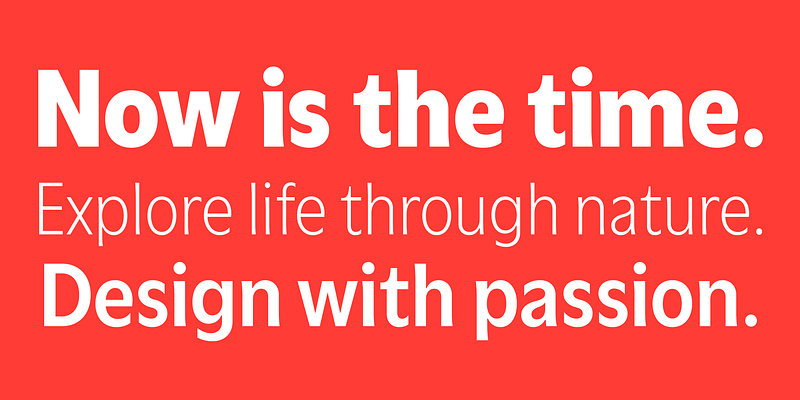
Utile Narrow Font Free Download
Utile Narrow Font Free Download is a sleek and modern sans-serif typeface designed for maximum readability in compact spaces. With its condensed letterforms and clean geometry, Utile Narrow is ideal for editorial layouts, mobile interfaces, branding, and any project where space-saving typography is key.
This font balances form and function beautifully—offering a minimalist aesthetic without sacrificing legibility. It comes with multiple weights, full character support, and multilingual compatibility, making it a versatile choice for both print and digital media.
Whether you're building a clean website UI, crafting infographics, or designing product labels, Utile Narrow Font Free Download helps you deliver a polished, professional look even in tight layouts. Download it for free to test in your personal projects. For commercial use, remember to obtain the proper license. Add this space-efficient, modern typeface to your design toolkit for crisp and stylish results.